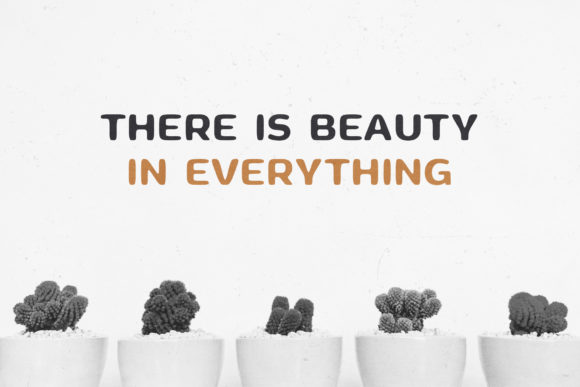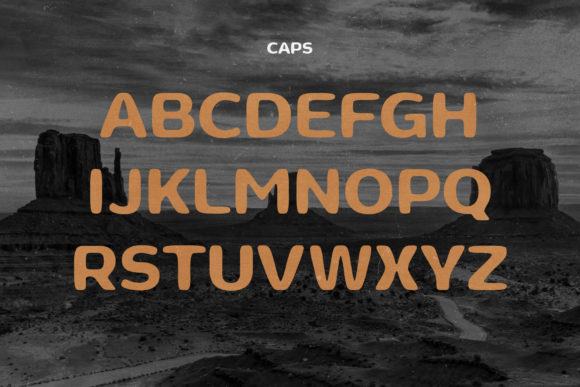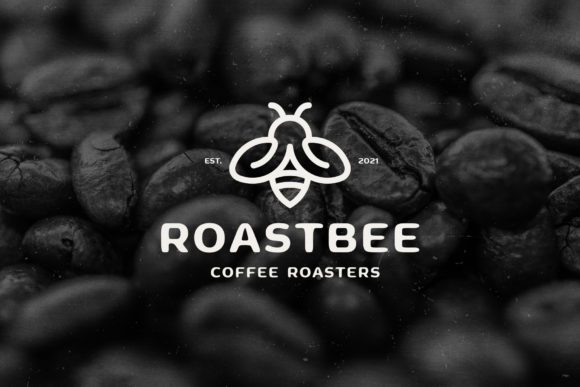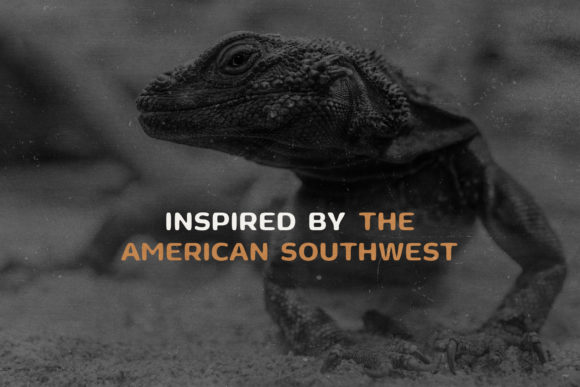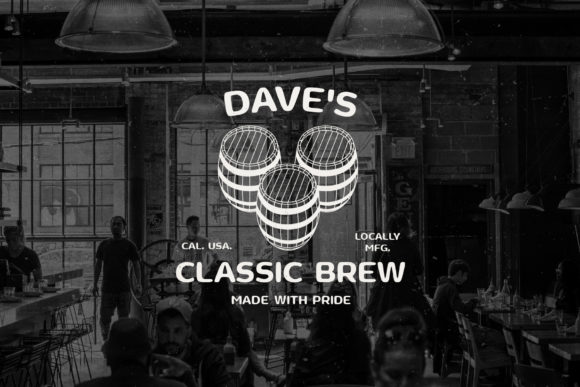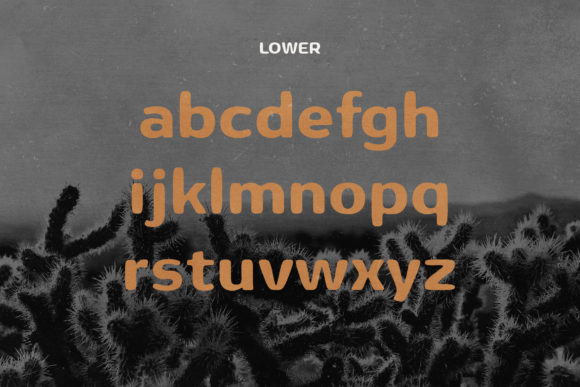
Introducing Buckaroo Font: The Ultimate Vintage Display Font for Creative Projects
Are you tired of using the same old fonts for your design projects? Look no further than Buckaroo Font, a cool, bold, and vintage-styled display font that’s sure to make your creations stand out. With its unique blend of classic and modern elements, Buckaroo Font is the perfect addition to any designer’s toolkit.
What is Buckaroo Font?
Buckaroo Font is a display font that’s inspired by the classic typography of the Wild West. Its bold, rugged design makes it perfect for headlines, titles, and other display text. But what really sets Buckaroo Font apart is its versatility – it can be used for a wide range of projects, from posters and flyers to logos and branding materials.
Key Features of Buckaroo Font
- Bold and eye-catching design: Buckaroo Font is designed to grab attention and make a statement. Its bold lines and rugged texture make it perfect for creating eye-catching headlines and titles.
- Vintage-inspired aesthetic: Buckaroo Font has a distinctly vintage feel that’s reminiscent of classic Wild West typography. This makes it perfect for projects that require a retro or nostalgic vibe.
- Highly versatile: Buckaroo Font can be used for a wide range of projects, from posters and flyers to logos and branding materials. Its flexibility makes it a great addition to any designer’s toolkit.
- Easy to read: Despite its bold design, Buckaroo Font is surprisingly easy to read. This makes it perfect for use in body text, as well as display text.
How to Use Buckaroo Font in Your Design Projects
Buckaroo Font is incredibly easy to use, even for designers who are new to working with fonts. Here are a few tips for incorporating Buckaroo Font into your design projects:
- Use it for headlines and titles: Buckaroo Font is perfect for creating eye-catching headlines and titles. Try using it to add a bold, attention-grabbing element to your posters, flyers, and other marketing materials.
- Pair it with other fonts: Buckaroo Font can be paired with a wide range of other fonts to create a unique and visually appealing design. Try pairing it with a clean, sans-serif font for a bold and modern look.
- Experiment with different colors and textures: Buckaroo Font looks great in a wide range of colors and textures. Try experimenting with different colors and textures to find the perfect look for your design project.
Benefits of Using Buckaroo Font
So why should you choose Buckaroo Font for your design projects? Here are just a few benefits of using this amazing font:
- Adds a touch of personality to your designs: Buckaroo Font has a unique and distinctive personality that’s sure to add a touch of personality to your designs.
- Perfect for creative projects: Buckaroo Font is perfect for creative projects that require a bold and eye-catching font. Try using it for posters, flyers, logos, and other marketing materials.
- Easy to read and understand: Despite its bold design, Buckaroo Font is surprisingly easy to read and understand. This makes it perfect for use in body text, as well as display text.